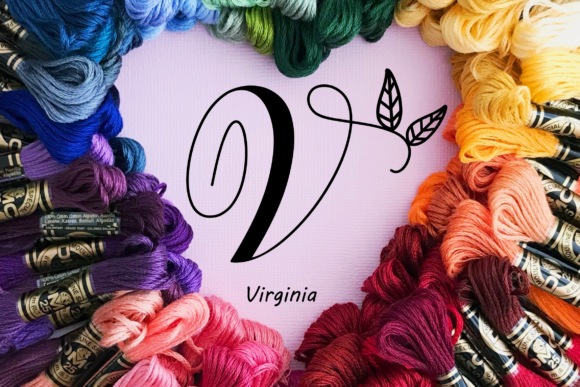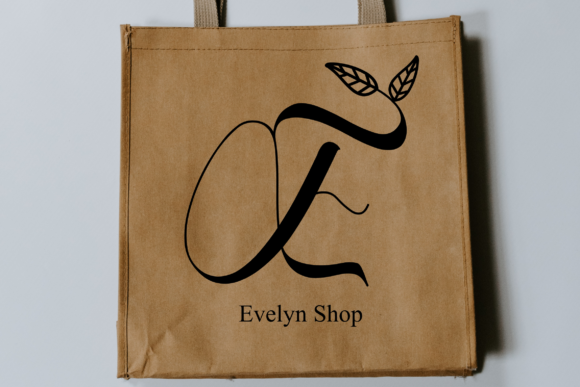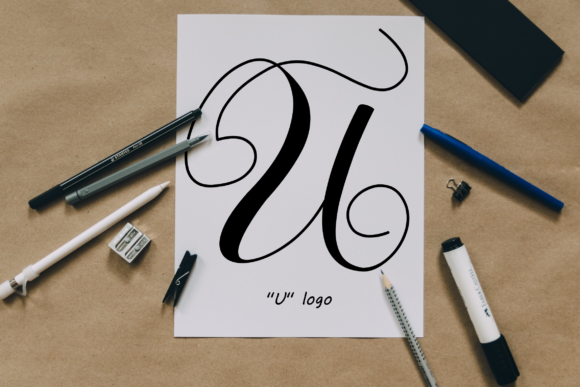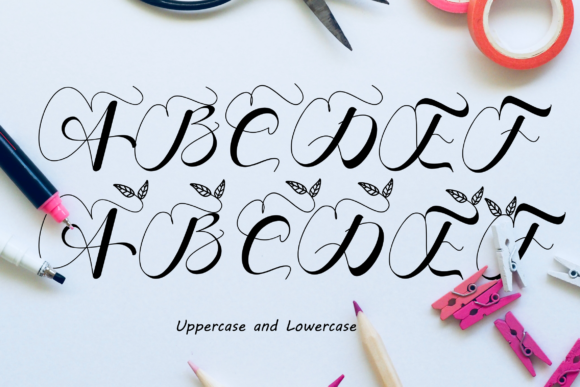
Discover the Whimsy of Handwritten Design with Branch Monogram Font
Have you ever found yourself scribbling away in a notebook, letting your pen wander across the page as you create something beautiful from scratch? That’s the magic of handwritten design – a world where imperfections become charming and uniqueness shines through. As a designer, you’re likely no stranger to the allure of handwritten fonts, and if you’re anything like us, you’re always on the lookout for the next great find.
Enter Branch Monogram Font, a delightful and elegant handwritten font that’s perfect for adding a touch of whimsy to your projects. With its sweet and delicate swashes, this font is sure to bring a smile to your face and a touch of personality to your designs. Whether you’re creating letterheads, titles, or stationery, Branch Monogram Font is the perfect choice for adding a handmade feel to your work.
As a designer, you know the value of a well-crafted font – one that can elevate your designs and leave a lasting impression on your audience. With Branch Monogram Font, you’ll have the perfect tool at your fingertips to create truly unique and memorable designs that will set you apart from the crowd.
- Unique Characteristics: Distinctive, hand-drawn style with branching lines and intricate details, ideal for creating unique monograms and logos.
- Font Style: Script, Handwritten, and Monogram font styles for added versatility.
- Font Width: Variable width font, allowing for a natural, handwritten feel.
Designer Review: Branch Monogram Font
Overall, I was really excited to dive into the Branch Monogram Font. Here are my honest thoughts:
- ✨ Unique and creative design: The Branch Monogram Font is a beautiful blend of traditional monogram typography and a modern twist. The branching elements add a fun and playful touch to the classic monogram style.
- ✨ High-quality fonts: The font files are well-made and highly customizable, making it easy to adjust the design to fit your needs.
- ✨ Wide character set: The font includes a wide range of characters, including numbers, punctuation, and special characters, making it suitable for various design projects.
- ⚠️ Limited language support: The font only supports English characters, which might be a limitation for designers working on multilingual projects.
- ⚠️ Some characters may require adjustments: While the font is highly customizable, some characters might require additional tweaking to achieve the desired look.
Overall, the Branch Monogram Font is a beautiful and creative font that can add a unique touch to your design projects. While it has some limitations, the unique design and high-quality font files make it a great choice for designers looking for a modern twist on traditional monogram typography.
Branch Monogram Font is ideal for:
- Personalized gifts and accessories.
- Business logos and branding materials.
Alternatives to Branch Monogram Font
Branch Monogram Font is a unique and elegant font, but sometimes designers may need to explore other options. Here are a few alternatives:
Great Vibes is a modern script font that is perfect for adding a touch of elegance to your designs. It is ideal for use in wedding invitations, luxury branding, and high-end packaging. Great Vibes has a more fluid and organic feel compared to Branch Monogram Font, making it a great choice for designers who want to add a bit of whimsy to their designs.